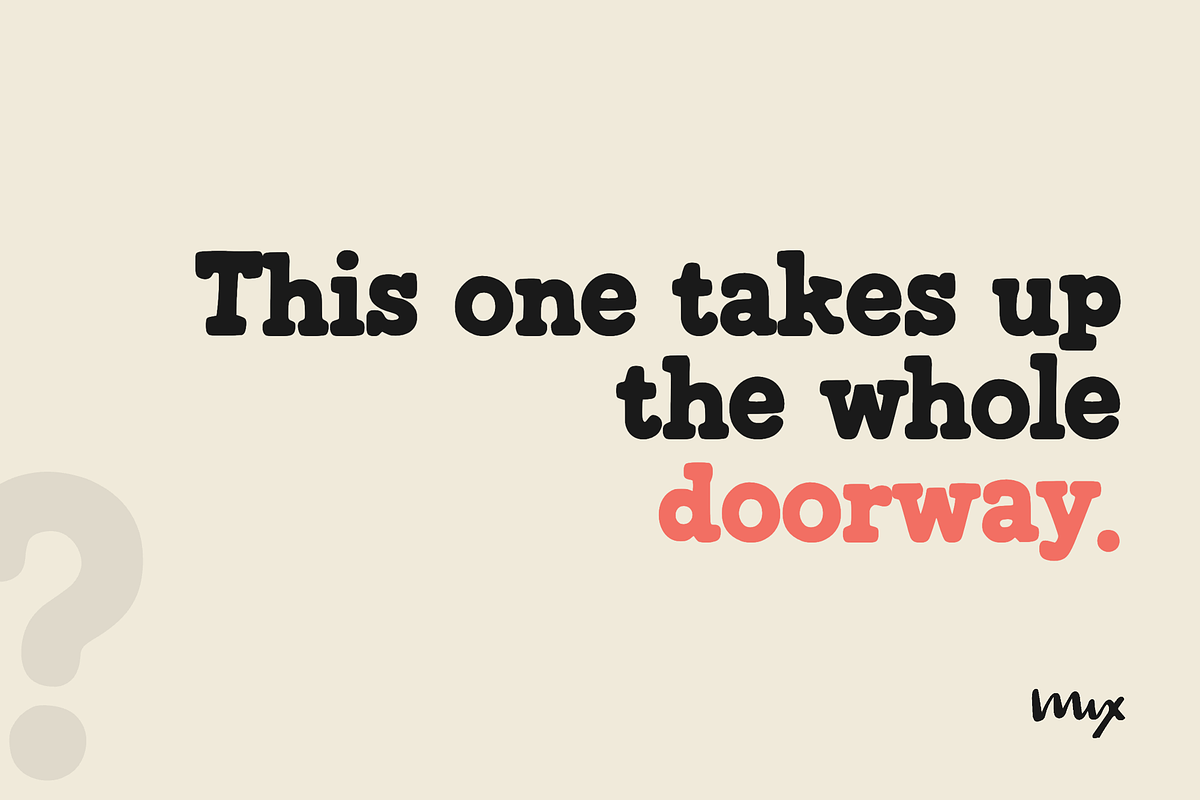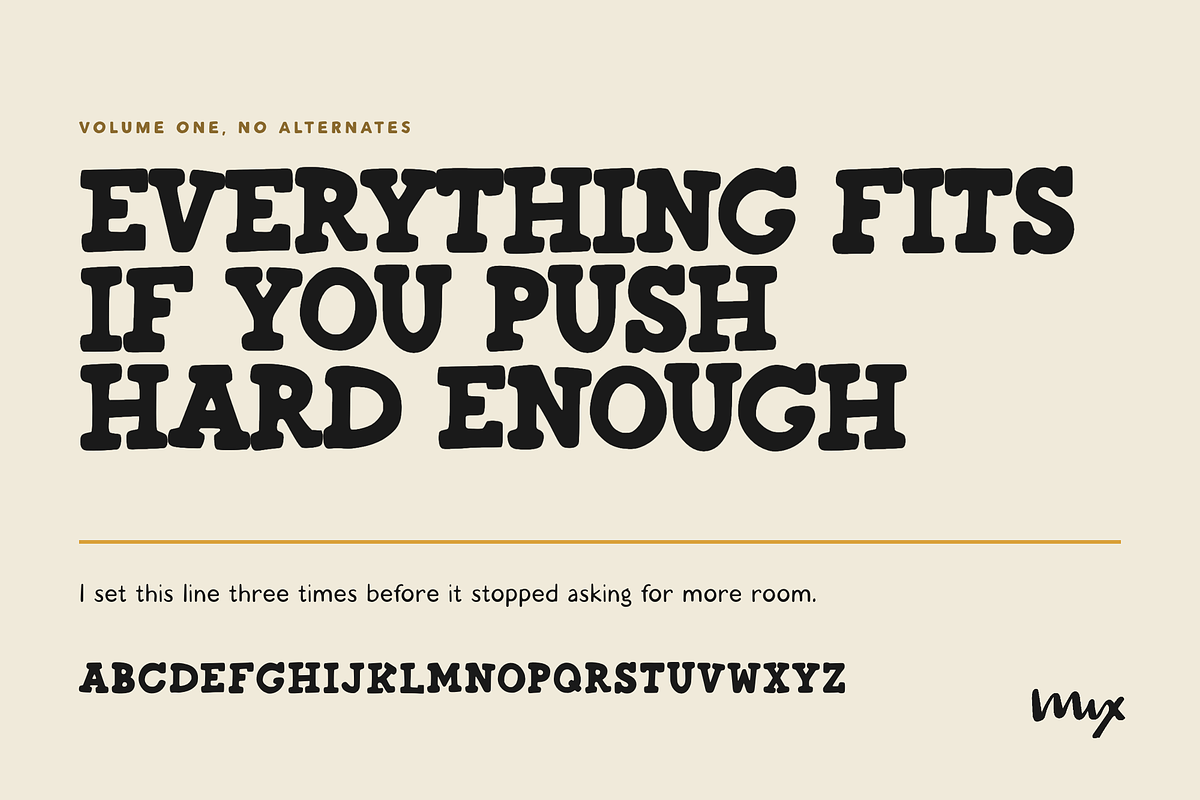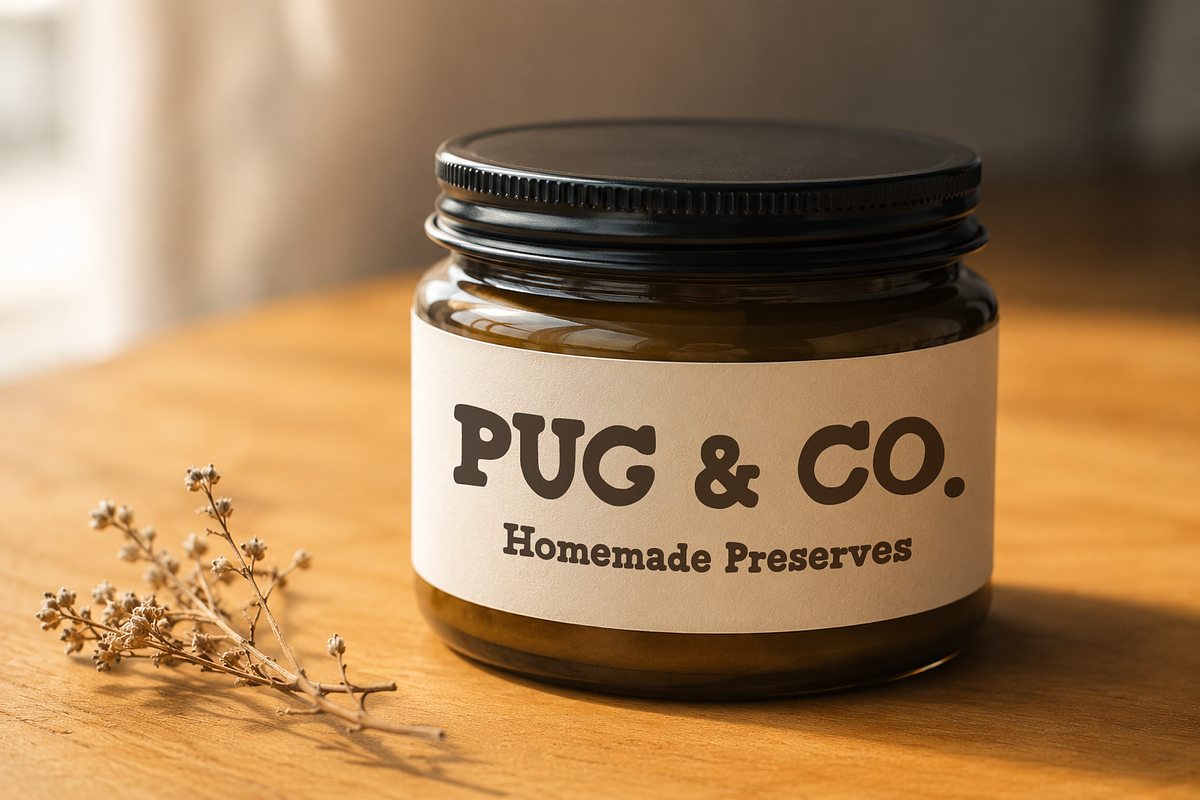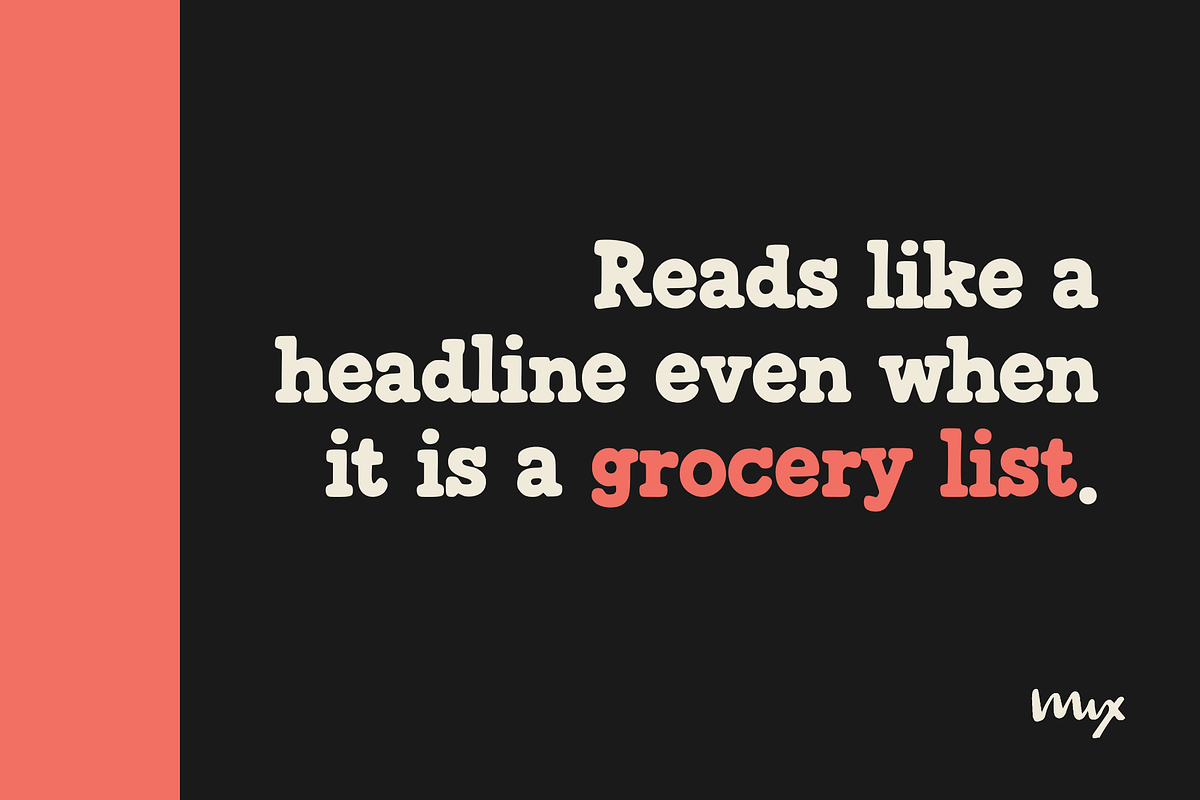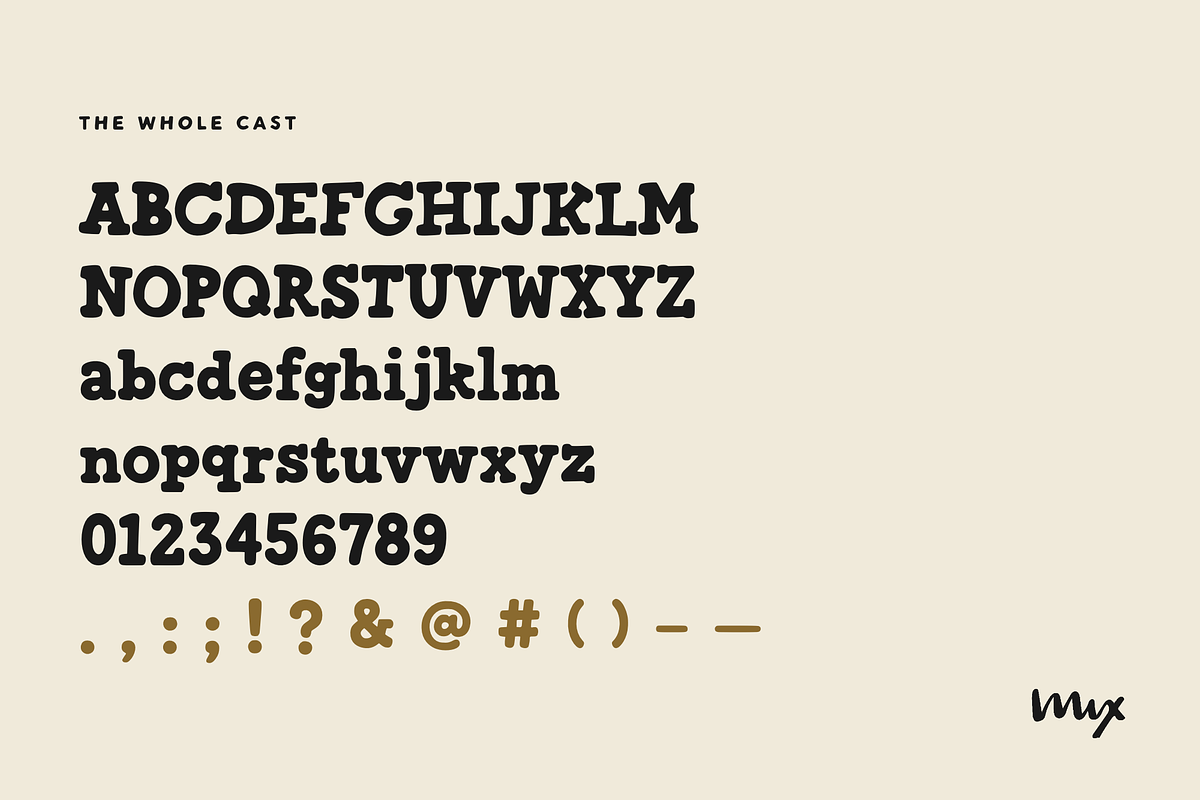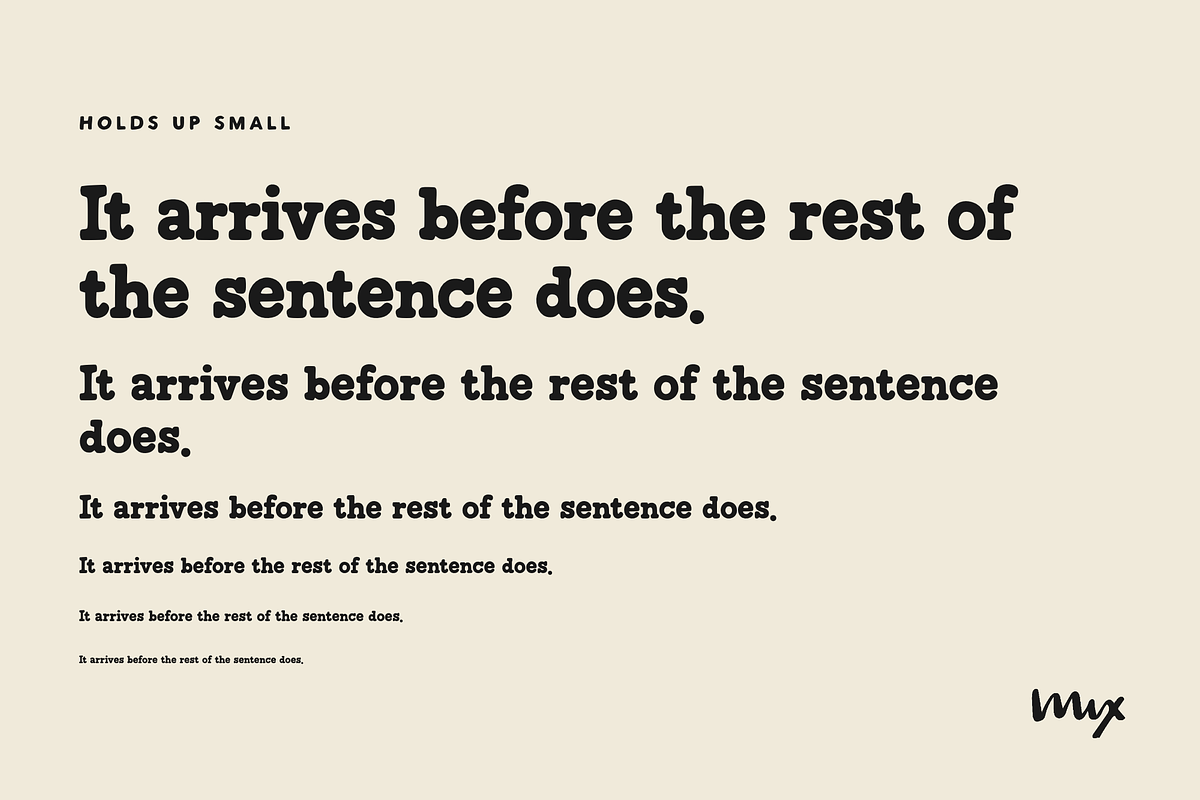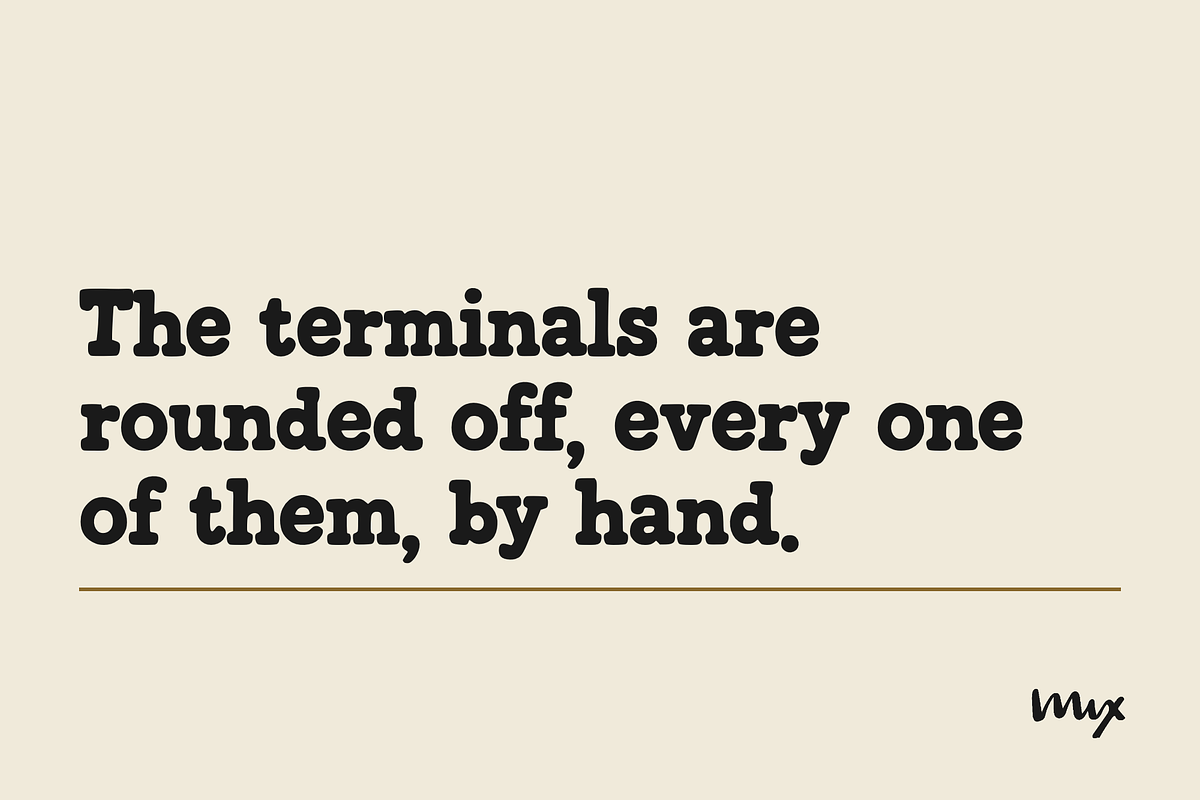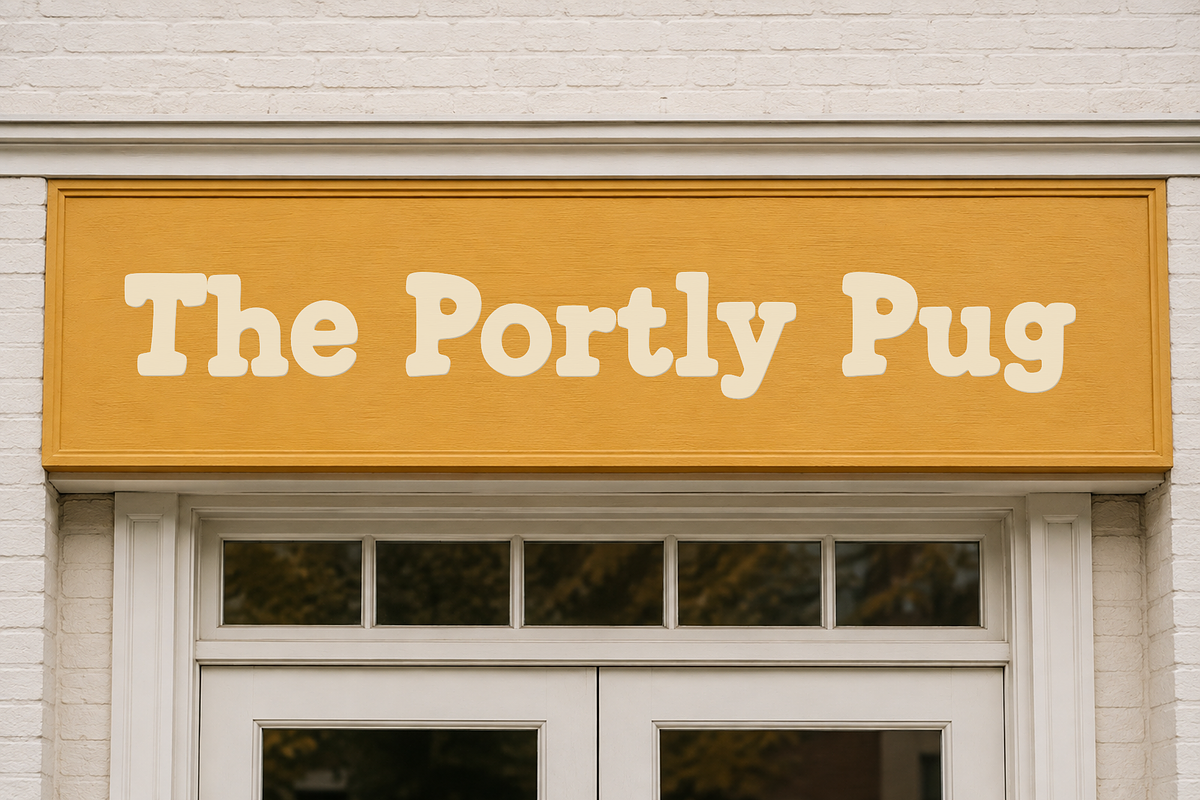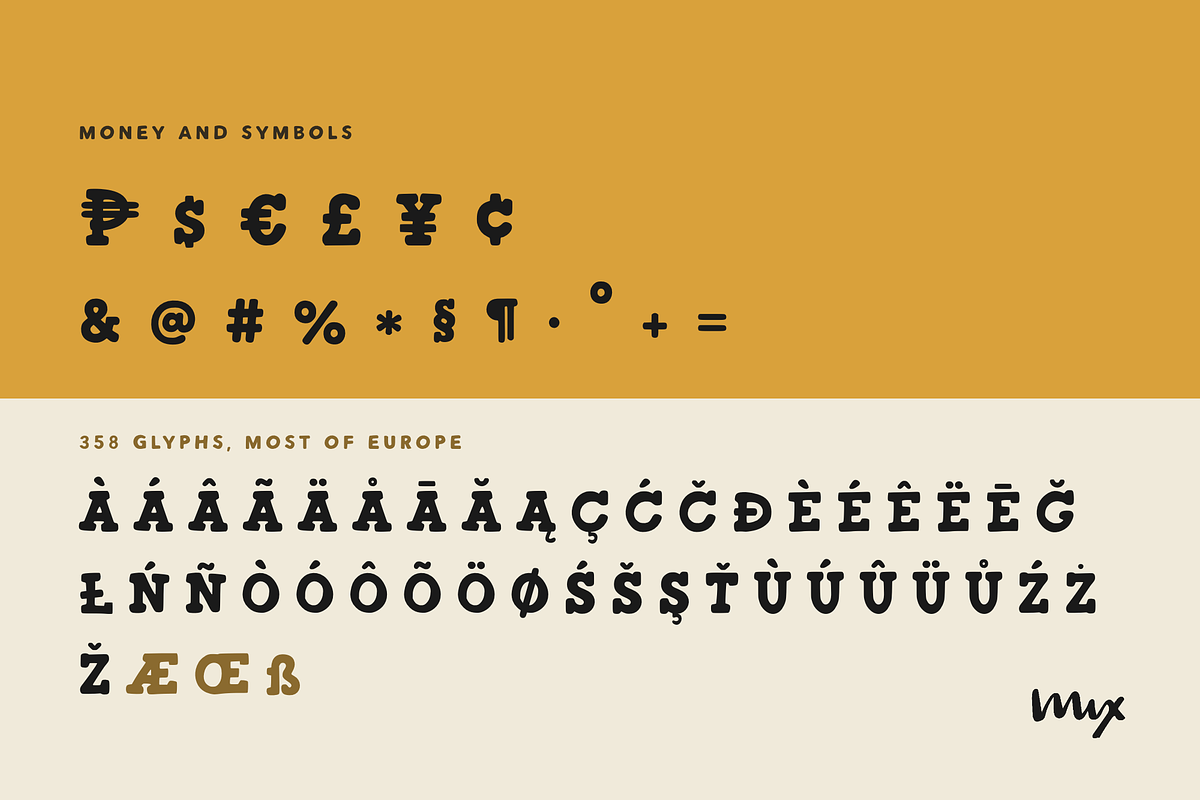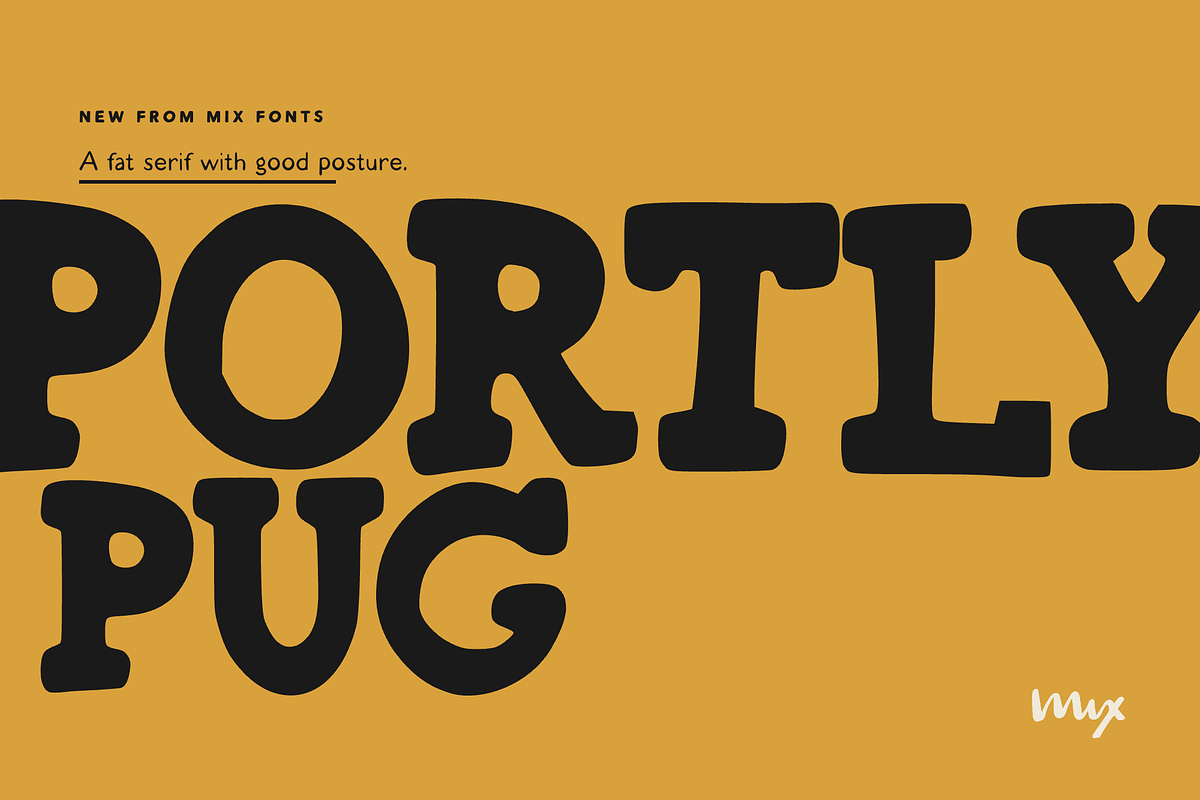
Mix Portly Pug — Bold Slab Serif
A bold slab serif that rounded off every corner on the way in.
Squat, heavy letterforms built for display work, the kind that has to carry a whole layout on its own. The rounded terminals keep it friendly where most heavy slabs turn severe, so it suits a jam label or a market stall sign better than a font this weight usually manages. It holds together small too, which means subheads and product copy work as well as big retro poster settings.
Mix Portly Pug. Extended Latin with multilingual support for Western European languages.
Made for
Shop signage · Product and jar labels · Poster headlines · Book covers · Merch and apparel · Farmers market branding